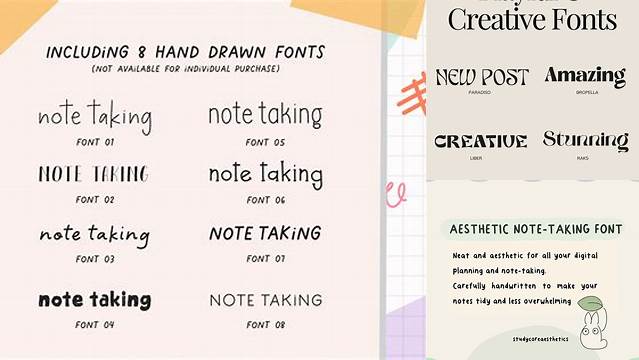
Best Fonts For Digital Note-Taking: Enhance Your Workflow
Hey everyone! Let's dive into something super important for all you digital note-takers out there: fonts. Yup, those little guys can seriously impact how you feel about your notes and how well you can actually absorb the info. Finding the perfect fonts for digital note-taking can feel a bit like a Goldilocks situation – some are too fancy, some are too plain, and some are just right. This article is all about helping you find those "just right" fonts to make your digital note-taking experience a breeze. We'll be exploring different styles, readability, and even some cool font combinations to get you started. Trust me, choosing the right font is a simple tweak that can make a huge difference in your productivity and how much you enjoy the whole note-taking process. So, grab your digital pens and let's get started finding the perfect font for you!
The Importance of Choosing the Right Fonts for Digital Note-Taking
Okay, guys, let's get real for a second. We often overlook the impact of fonts for digital note-taking, but it's a big deal. Think about it: you're staring at your notes for hours. The font you choose sets the tone and can either make you feel engaged and happy or make your eyes want to jump out of your head. Seriously! Readability is the name of the game. If you can't quickly and easily read your notes, what's the point? You'll waste time deciphering each word, and your brain won't be able to focus on the actual content. This can lead to frustration and, let's be honest, a desire to procrastinate. The right font will boost your focus and help you stay in the zone when you're deep in the note-taking trenches. It will also make your notes look more organized and structured. Think of it like this: a clean, readable font is like a well-organized desk. It makes everything feel more manageable and less overwhelming. A good font can also help you to remember the info. Our brains are amazing pattern-recognizers. By using consistent fonts, you're creating visual cues that help your brain store and recall information more effectively. And finally, a good font can make your notes look more professional. Whether you're taking notes for school, work, or personal projects, a polished look shows that you care about the quality of your work. So, don't underestimate the power of choosing the right fonts for digital note-taking; it's a small change that can have a huge impact.
How Font Choice Affects Note-Taking Efficiency
Alright, let's talk about how those tiny little font choices can seriously impact how efficiently you can take notes. See, when you pick fonts for digital note-taking that are hard to read, your brain has to work overtime. Your eyes strain, and your brain spends more energy deciphering the text than actually understanding the concepts. This can slow down your note-taking speed considerably. You'll find yourself rereading sentences, getting distracted, and ultimately taking longer to capture the important information. Choosing a font with clear letterforms and good spacing is key. Look for fonts where the letters are distinct from each other. This will help your eyes glide across the page effortlessly, so you can capture information quickly. Think of it like this: a clear font is like a smooth road. The information flows smoothly, making it easier to keep up with the flow of ideas. A font that is easy on the eyes also reduces eye strain. Staring at a screen for hours can be tough, and a poorly chosen font can make it even worse. A comfortable font minimizes the strain on your eyes, so you can focus on the content without getting a headache. Plus, you will be less prone to mistakes. When you're reading a clear font, you're less likely to misinterpret words or miss important details. This will save you time and effort in the long run. Choosing the right font is like giving your brain a little boost, making the note-taking process faster, more enjoyable, and more effective.
Top Font Families Ideal for Digital Note-Taking
Now, let's get to the good stuff: the fonts themselves! We are going to explore some top font families perfect for fonts for digital note-taking, keeping in mind readability, versatility, and overall visual appeal. I’m going to highlight some of the best options that can seriously level up your note-taking game.
Serif Fonts: Classic and Elegant Choices
Serif fonts, with their little “feet” or strokes at the ends of letters, are a timeless choice. Think of them as the classic option. They can add a touch of elegance and formality to your notes, making them ideal if you want your notes to feel sophisticated and professional. A popular choice is Times New Roman, a go-to for a reason. It's incredibly readable, especially in body text. If you're aiming for a polished look, this is your guy. Then we have Georgia, which is another stellar choice. It's a little more modern than Times New Roman and designed to be highly readable on screens. Its slightly wider letterforms make it easy on the eyes, even for long reading sessions. Finally, there's Playfair Display, which has a high contrast and a slightly more stylish look. This is a great choice for headings or emphasis, and to make your notes stand out. Remember that serif fonts can sometimes feel a bit too formal, so they might not be the best for super casual note-taking. But, if you are looking for a clean, elegant look, these are definitely worth exploring.
Sans-Serif Fonts: Modern and Clean Options
Now, let's talk about the sans-serif fonts. Sans-serif fonts are the cool, modern kids on the block. These fonts don't have those little strokes, giving them a clean, minimalist appearance. They're perfect if you want your notes to feel fresh, modern, and easy to read. Helvetica is a legendary font. It's clean, neutral, and versatile, making it a great choice for body text and headings. You can't go wrong with Helvetica! Open Sans is another fantastic option, developed specifically for on-screen readability. It's got a friendly and approachable feel, making it perfect for detailed notes. And let's not forget Lato. This is another great option for on-screen use. It's got a clean, simple design that is super easy on the eyes. Sans-serif fonts generally offer excellent readability on screens, and they pair well with any visual style. These are great for detailed notes, brainstorming sessions, or anything where clarity is key.
Monospace Fonts: Great for Coding and Structure
If you're into coding or just like to see things perfectly aligned, monospace fonts are your jam. These fonts assign the same width to every character, which makes everything line up in neat columns. Courier New is a classic monospace font. It’s been around for ages and is great for technical notes where precision is important. And then there's Roboto Mono. This is a more modern monospace font that's easy on the eyes and works great on screens. Its clean lines and good spacing make it a pleasure to read. Source Code Pro is another excellent choice. It's designed specifically for coding, so it's optimized for readability, with clear differentiation between characters. Monospace fonts are also great for creating tables, charts, or anything where you need precise alignment. They can also give your notes a unique, technical feel. But remember that they might not be the best choice for long blocks of continuous text, as the even spacing can sometimes make it a little harder to read.
Factors to Consider When Choosing Fonts for Digital Note-Taking
When selecting the perfect fonts for digital note-taking, a few key factors will impact how well those fonts work for you. Let's break them down to make sure your notes are as readable and enjoyable as possible.
Readability on Various Devices
First off, think about where you'll be reading your notes. Will it be on a laptop, tablet, or phone? The screen size and resolution of your device can significantly affect how a font looks. Fonts for digital note-taking need to look good on all these devices. For example, a font that looks great on a big laptop screen might be too small or cramped on a phone. So, pick fonts that are designed to be readable on different screen sizes. Make sure the font has clear letterforms, with no overly intricate or decorative details that might get lost on smaller screens. Test it out on the device you'll be using most to make sure you can easily read it. Also, keep in mind how the font appears in different lighting conditions. Some fonts might appear too light or too bold in certain lighting, which can make it hard to read. Choose a font that's versatile enough to look good in all kinds of environments. This might mean testing the font at different brightness levels and angles. Take notes in the font and see how you feel after a while. Does it strain your eyes? If so, you may want to rethink your font choice. Readability is paramount.
Font Weight and Size for Optimal Clarity
Let's talk about font weight and size. These are important when you're picking fonts for digital note-taking, because they control the overall feel of your notes. Font weight, which refers to how thick or thin the lines of the font are, can have a big impact on readability. In general, you'll want to choose a font that has a good range of weights. This will allow you to create visual hierarchy in your notes. For example, you might use a bolder weight for headings and subheadings, and a lighter weight for body text. That way, the headings stand out and your notes are organized. Also, think about the size. The font size you choose should depend on the device you're using and the type of notes you're taking. For general note-taking on a laptop, a font size between 12 and 14 points is usually a good starting point. If you're using a tablet or phone, you might need to adjust the size to make sure it's easy to read. Ultimately, the best font size is one that's comfortable for your eyes and allows you to read the text without straining. Don't be afraid to experiment to find the right balance. Try different font weights and sizes to find the perfect combination for your notes. Your eyes will thank you!
Font Styles: Italics, Bold, and Underline Usage
Let's dive into the world of font styles, like italics, bold, and underline, which are all part of what you should think about when choosing fonts for digital note-taking. These styles are like the secret weapons that can transform how you organize and emphasize key information. First off, italics. They're great for emphasizing a word or phrase, especially when you want to subtly highlight something. But, don't go overboard. Using too much italics can make your notes look messy and hard to read. Then there's bold. This is super useful for headings, subheadings, or any key terms you want to stand out. It's a clear way to grab your attention and make sure your notes are easy to scan and understand. Finally, let's talk about underline. Underlining can be great for highlighting important information, but, it can also make your notes look cluttered. Underlining can also make a mess. Avoid underlining large blocks of text, because they can become illegible. The trick is to use font styles in a strategic and thoughtful way. Think of it as a tool to make your notes more organized and easier to read, rather than an excuse to get fancy. When selecting fonts, make sure they include various styles (italics, bold, etc.). This will make sure that you can tailor the appearance of your notes as you need. With the right mix of font styles, your digital notes can be clear and look good!
Testing and Experimentation with Fonts for Digital Note-Taking
So, you've got a few fonts in mind. What now? It's time for the fun part: testing and experimenting! Finding the right fonts for digital note-taking is an important process. Let's walk through how to test fonts so you get the perfect fit.
Creating Sample Notes for Testing
Before you commit to a new font, create sample notes to put it to the test. Write a few notes covering different topics, so you can get a real sense of how the font looks and feels. This will help you get a good idea of how it works in practice. You can create a short summary, use bullet points, and incorporate headings. Write the sample notes using different sizes and weights. That way you can see how the font appears in different situations. Mix and match styles like bold and italic to get a feel of their visual hierarchy. This will allow you to see how the font looks when you emphasize important information. This testing phase will help you find any potential issues, and make sure the font looks great in the way you'll be using it every day.
Comparing Fonts Side-by-Side
Comparing fonts side-by-side is a great way to figure out what works best for your needs. Create a document with a few lines of text from each font you are considering, and try them out together. Use the same content for each font, that way you can compare them in a fair way. Start by comparing the font size and weight, so you can make sure they meet your needs. Experiment with different line spacing to see how it affects readability. See how the different fonts look in both light and dark mode, if your note-taking app supports it. This will help you figure out how the font looks on various devices. And also, don't hesitate to change up font sizes, so you can ensure that the font is easy to read. Comparing fonts side-by-side will help you narrow down your selection and choose the fonts that meet your needs.
Gathering Feedback from Other Users
Getting feedback from others can be a great way to find the best fonts for digital note-taking, so you know what other people think and feel. It's a good way to gather information, and is a good way to make sure you are on the right track. Share a few sample notes with your friends, classmates, or coworkers. Ask them for feedback on how easy the font is to read, and which one they like best. Their opinions can give you new insights into the fonts you are considering. See if they have any suggestions that can improve the overall look of your notes. Use the feedback to make a decision and try out other fonts. Asking for opinions is not always a bad idea!
Tips for Using Fonts Effectively in Your Digital Notes
Alright, you've chosen your favorite fonts! Now, let's look at how to use those fonts for digital note-taking to get the most out of them. Here are some tips to make sure your notes are as readable and efficient as possible.
Establishing a Consistent Font Hierarchy
Creating a font hierarchy is super important for making your notes organized and easy to understand. A font hierarchy simply means using different fonts, sizes, and weights to create visual distinctions between different types of information. For instance, you might use a larger, bold font for your main headings, a slightly smaller and less bold font for subheadings, and a regular font for the body text. This visual hierarchy helps your brain categorize and process information more efficiently. It makes it easier to scan through your notes, identify key ideas, and grasp the overall structure. Also, make sure your headings are clearly labeled. Using headings and subheadings throughout your notes creates visual structure. Ensure that the font choices for your headings and subheadings are consistent throughout. This consistency helps your brain create a visual map of your notes. By establishing a clear font hierarchy, you'll be able to get more out of your notes.
Using Font Combinations to Enhance Note Structure
Don't be afraid to mix and match. Combining fonts can add personality and structure to your notes. Just make sure that the fonts you choose complement each other. Stick to a few core font combinations to keep things neat. If you're unsure, look for font pairings recommended by other users. These pairings can make your notes visually appealing. When selecting fonts for combinations, consider their characteristics and visual harmony. If you are using a serif font for headings, try pairing it with a sans-serif font for the body text. This combination provides visual contrast. Also, ensure that the font sizes and weights work together to create a clear hierarchy. Using font combinations effectively, and with the right structure, can make your notes look great!
Optimizing Line Spacing and Margins
Another factor that affects how your notes feel is spacing and margins. Proper line spacing and margins are important for the readability and overall appearance of your notes. They can make all the difference in the world. Ensure that you have sufficient spacing between lines of text, which will make your notes easier on the eyes. Adjust the line spacing according to the size of your font. If you're using a larger font size, you might need slightly more line spacing, so the text doesn't feel cramped. Also, make sure you've got enough space between the margins. Wide margins create space around the text and keep your notes looking clean and uncluttered. Avoid using very narrow margins, because they can make your notes look crowded. Use consistent margins throughout your notes to maintain a balanced layout. You can control your notes by adjusting spacing and margins. This will keep everything neat!
Frequently Asked Questions about Fonts for Digital Note-Taking
Still got questions? We are going to answer some frequently asked questions about fonts for digital note-taking to make sure you're all set!
Can I Use Custom Fonts in My Note-Taking App?
Yeah, for most note-taking apps, the answer is yes. Many apps support custom fonts, which means you are not limited to the app's pre-installed options. To use a custom font, you may need to download the font files (.ttf or .otf) to your device, and install them. After installation, open the note-taking app and go to the font settings. You should find your newly installed font there. If you're not sure, check your app's documentation or online support to see if custom fonts are supported. This will help you find the best one to fit your needs. Keep in mind, some apps might have limitations, so make sure you read up about your app of choice!
How to Choose Fonts for Different Note-Taking Styles?
Choosing the right font depends on your note-taking style. For detailed, academic notes, a clean, readable font like Open Sans or Lato would work great. If you want a more handwritten feel, then a script font might suit you. If your notes are more creative and expressive, you might be able to experiment with a font that is a bit more playful. Think about the main purpose of your notes, your personality, and the overall style you're going for. Remember, clarity and readability should always be your top priorities, so avoid anything too fancy or difficult to read.
What are the Best Fonts for Handwriting Recognition?
If you're using handwriting recognition in your note-taking app, you will want to make sure that your font choice works well with this feature. Fonts with clear, distinct letterforms are your best bet. Try sans-serif fonts like Open Sans or Roboto. These fonts have a good balance of clarity and simplicity. Also, avoid fonts with overly stylized or intricate letterforms, as they can be hard for the software to interpret. Testing your fonts with your handwriting recognition setup will help you choose what you like. Try writing a few notes and see how the software translates the words. Ultimately, the best font is one that works well with the app and allows you to write quickly and accurately.
Conclusion: Choosing the Right Fonts for Digital Note-Taking
So, there you have it, guys! Choosing the right fonts for digital note-taking might seem like a small thing, but it can make a big difference in how much you enjoy and get out of your notes. We've covered a lot: from different font families to how to test them and make them work for you. Remember to consider readability on all devices, experiment with different styles, and create a font hierarchy to make your notes as clear as possible. The most important thing is to find fonts that you enjoy and that make your note-taking feel great! Experimenting is key to finding fonts that fit your style. Happy note-taking!